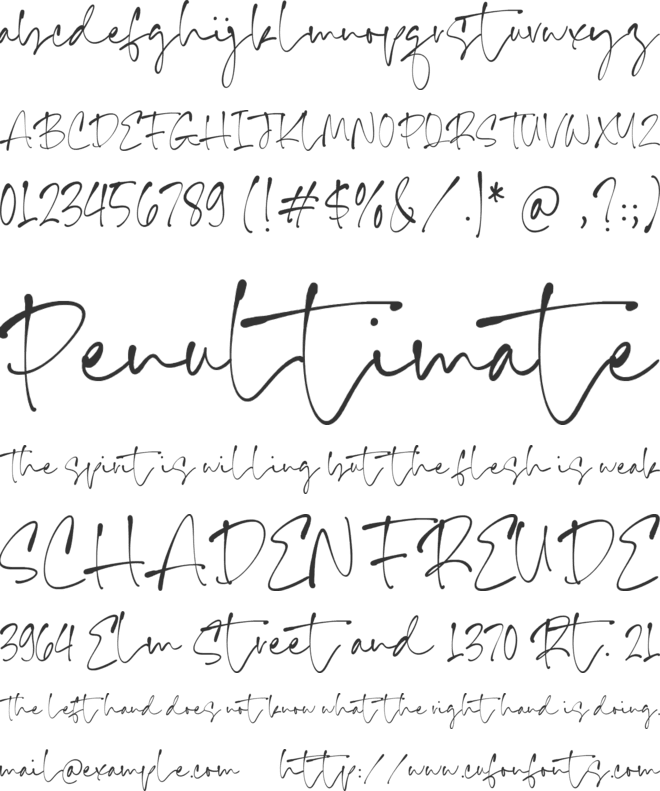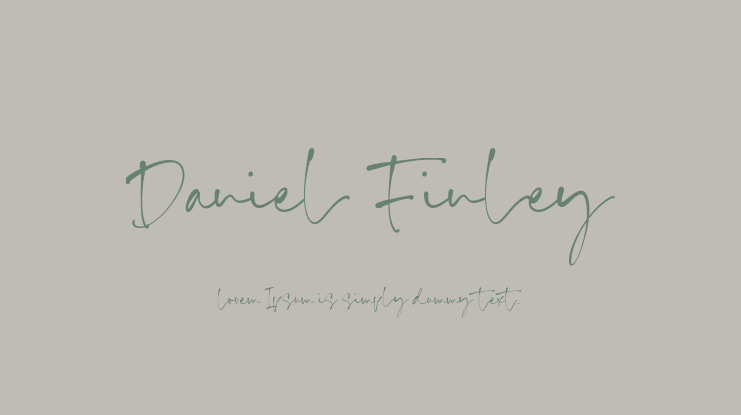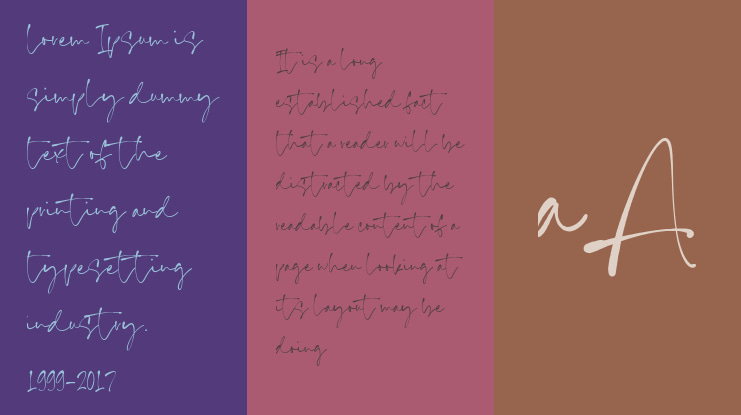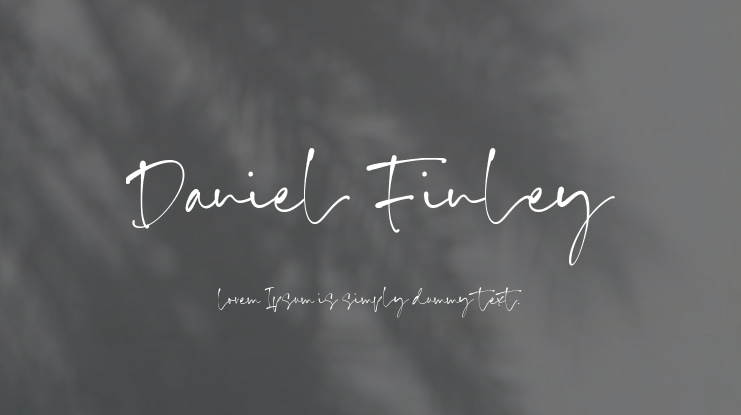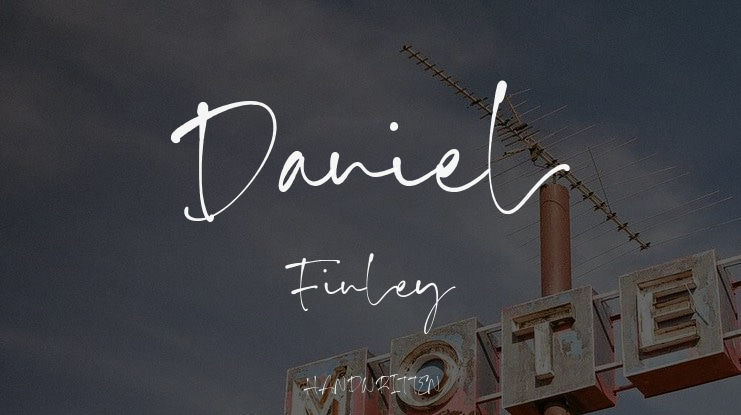
Daniel Finley Font
Introduced by Timurtype Studio!
Daniel Finley: A Casual Handwritten Script Font
This charming casual handwritten script font effortlessly blends elegance with approachability. Its fluid strokes and relaxed style create a warm, inviting feel, making it perfect for invitations, greeting cards, or brand identities. With its playful yet refined character, Daniel Finley adds a touch of authenticity and creativity to any design project.